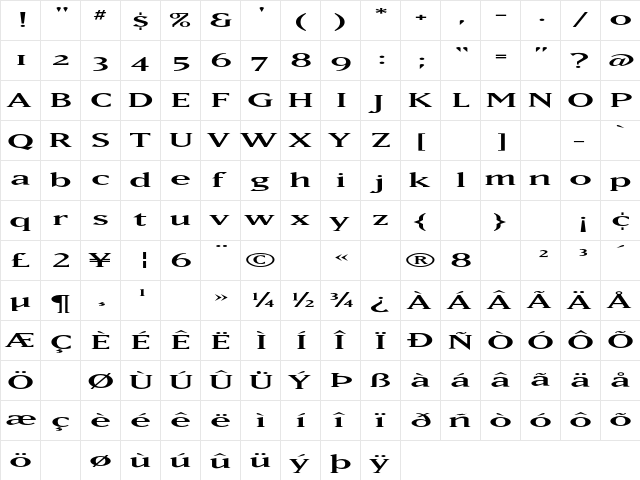
MatrixWide Regular
Design Context for MatrixWide Typeface
MatrixWide takes a measured approach to typography — its balanced proportions and neutral character make it a reliable workhorse for both digital and print work.
Pro Tip: Use MatrixWide in both headline and body roles to test its range before committing to a single application.